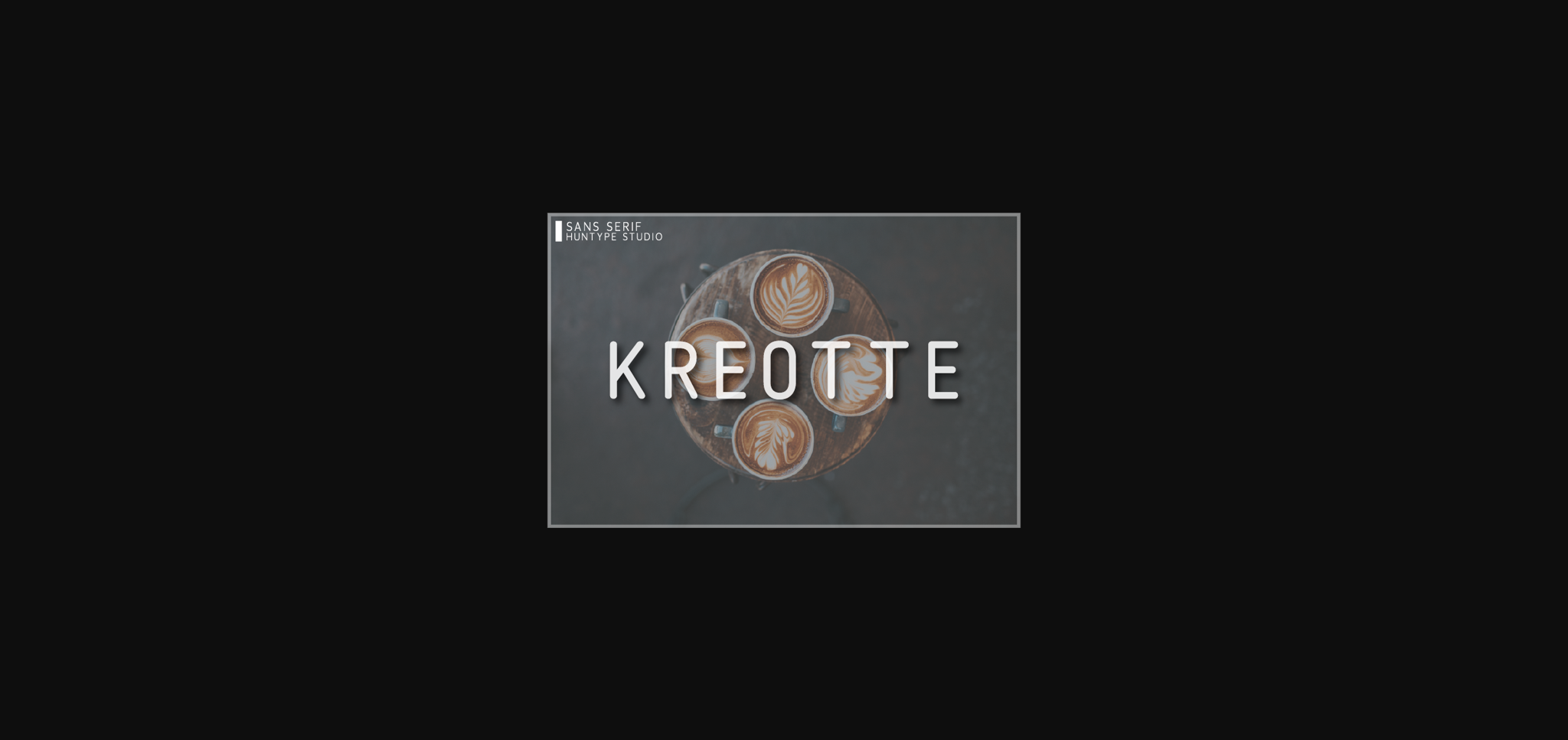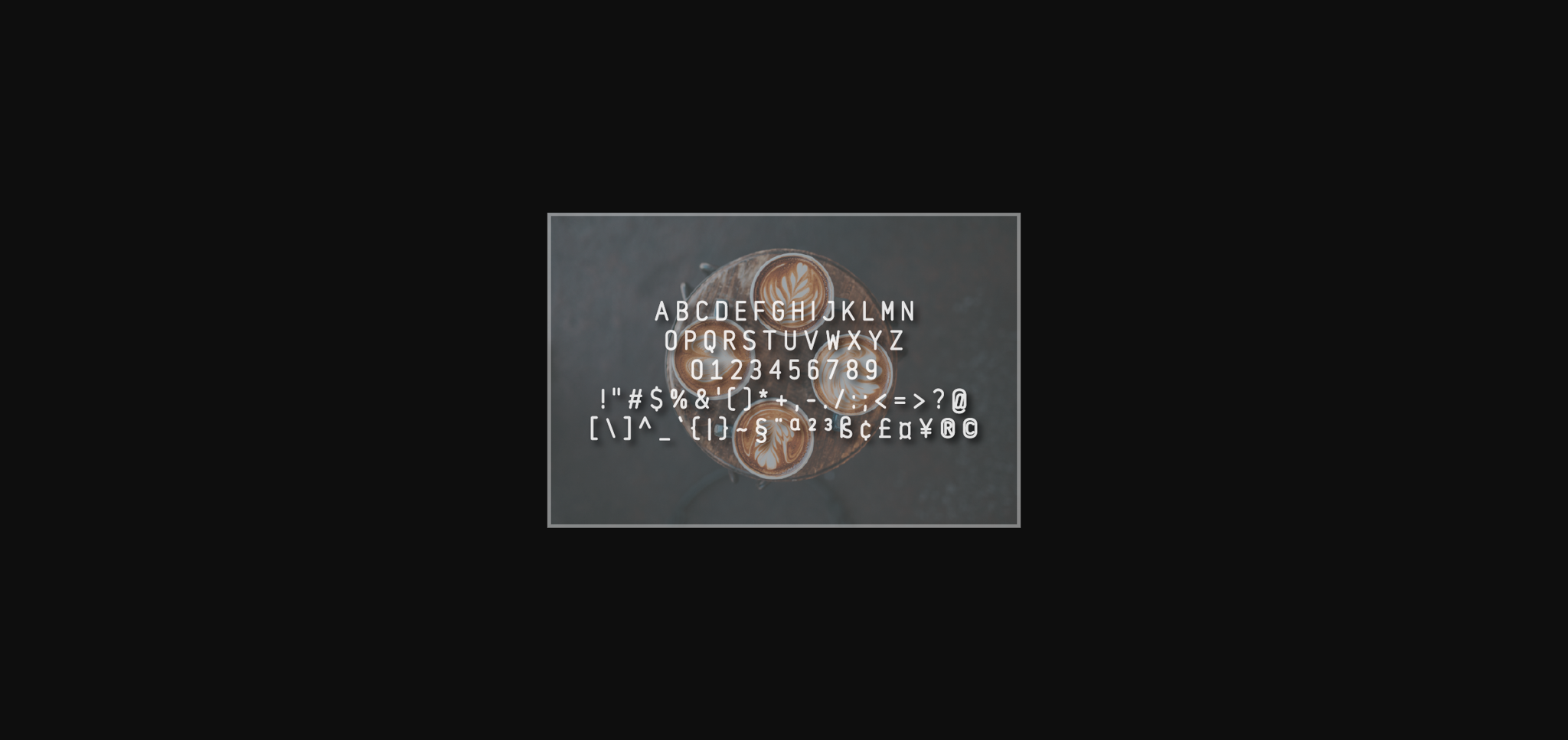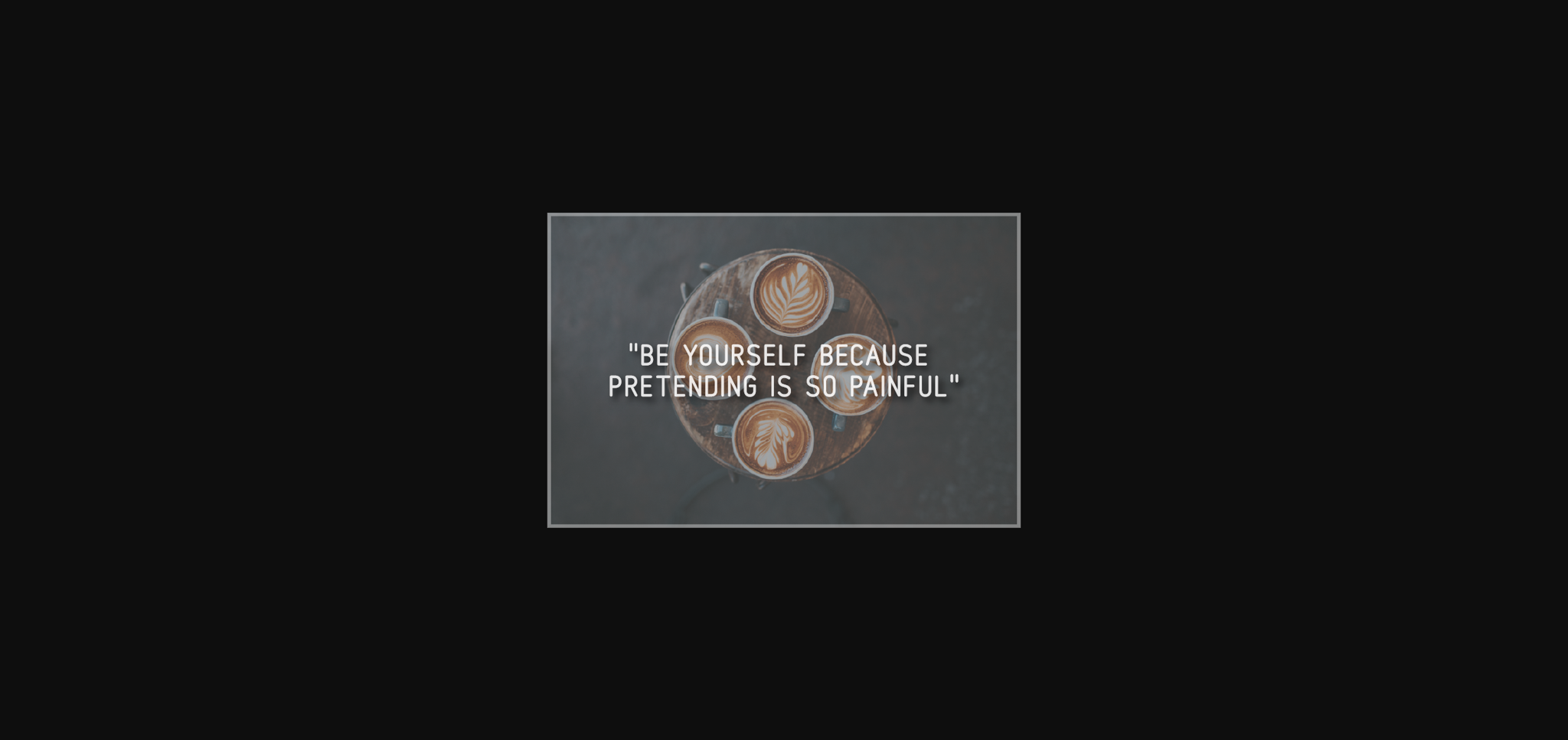
HomeSans Serif FontsKreotte Font Sans Serif Fonts Kreotte Font FacebookXPinterestWhatsApp 1 of 5 ... Kreotte Font Poster 2... Kreotte Font Poster 3... Kreotte Font Poster 4... Kreotte Font Poster 5... About Kreotte Font Kreotte is a vintage and simple sans serif font, with smooth edges. It’s perfect for vintage logo designs, social media posts, greeting cards, magazines and much more! DOWNLOAD NOW People also explored Anissa Font Bigdey Font Mister Casteloz Font Harvest Daily Font Wonder Wolf Font Halden Font Mokee Font Harvester Font 310 0 TagsKreotteKreotte Font Previous articlePatricea FontNext articleBen Font LEAVE A REPLY Cancel reply Comment: Please enter your comment! Name:* Please enter your name here Email:* You have entered an incorrect email address! Please enter your email address here Website: Save my name, email, and website in this browser for the next time I comment. Personal Use Free Cataleya Personal Use Free Read more about this font Waturaden Personal Use Free Read more about this font Jilliant Personal Use Free Read more about this font Kellana Personal Use Free Read more about this font BLOG How to Cut Any Font on Cricut: Convert a Font to SVG (Free) Turn any font into a clean SVG so it cuts crisp on Cricut - a quick 3-step workflow using a free font-to-SVG tool. Best Fonts for YouTube Videos: Make Your Thumbnails Stand Out Transform Your Website: Elevate Your Typography with 7 Best Web Font Generators Exploring Font Trends